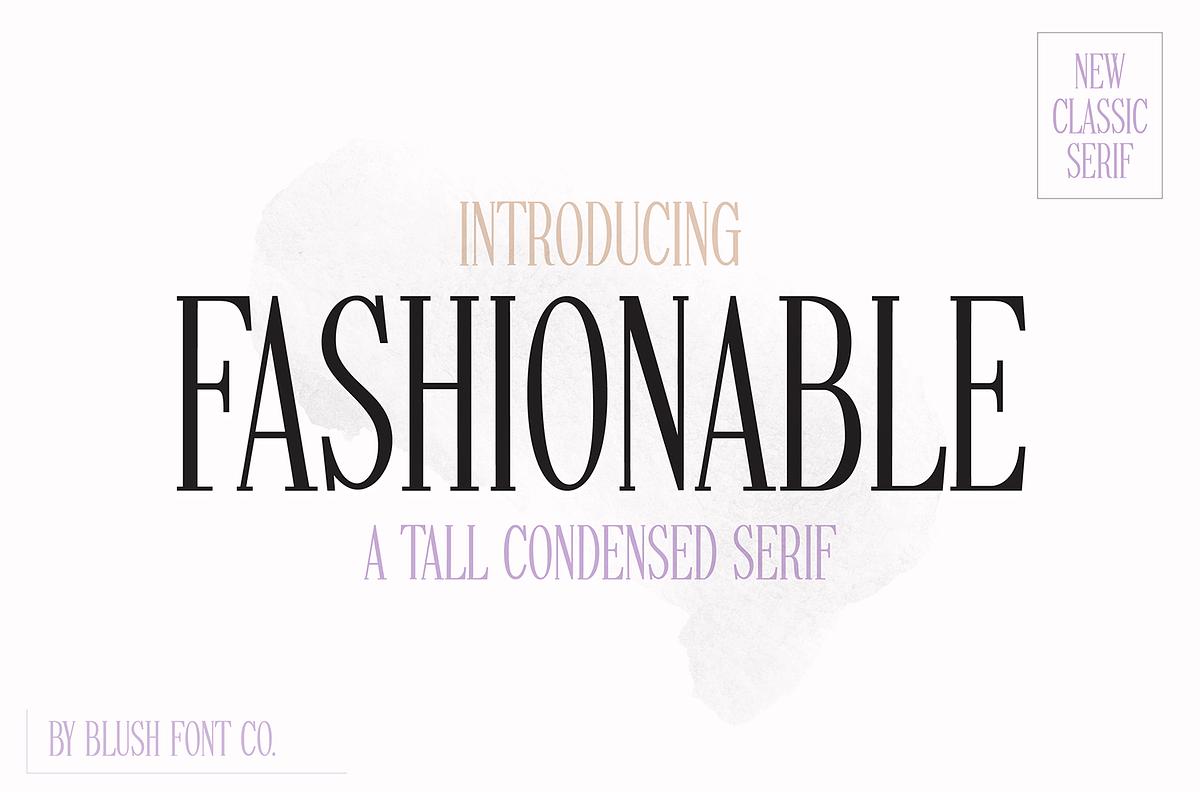
Introducing FASHIONABLE Tall Modern Condensed Serif Display Font Free Download, a bold display typeface that exudes elegance and modernity. Designed with tall, condensed letterforms, this font is perfect for projects requiring a sophisticated and stylish touch, such as wedding invitations, branding, and decorative crafts. Its all-caps glyphs, along with numbers, punctuation marks, and international characters, provide versatility for various design applications. Download FASHIONABLE Tall Modern Condensed Serif Display Font Free Download to explore its features in personal projects. For commercial use, please ensure you purchase the appropriate license. Elevate your designs with the refined aesthetics of FASHIONABLE Tall Modern Condensed Serif Display Font Free Download